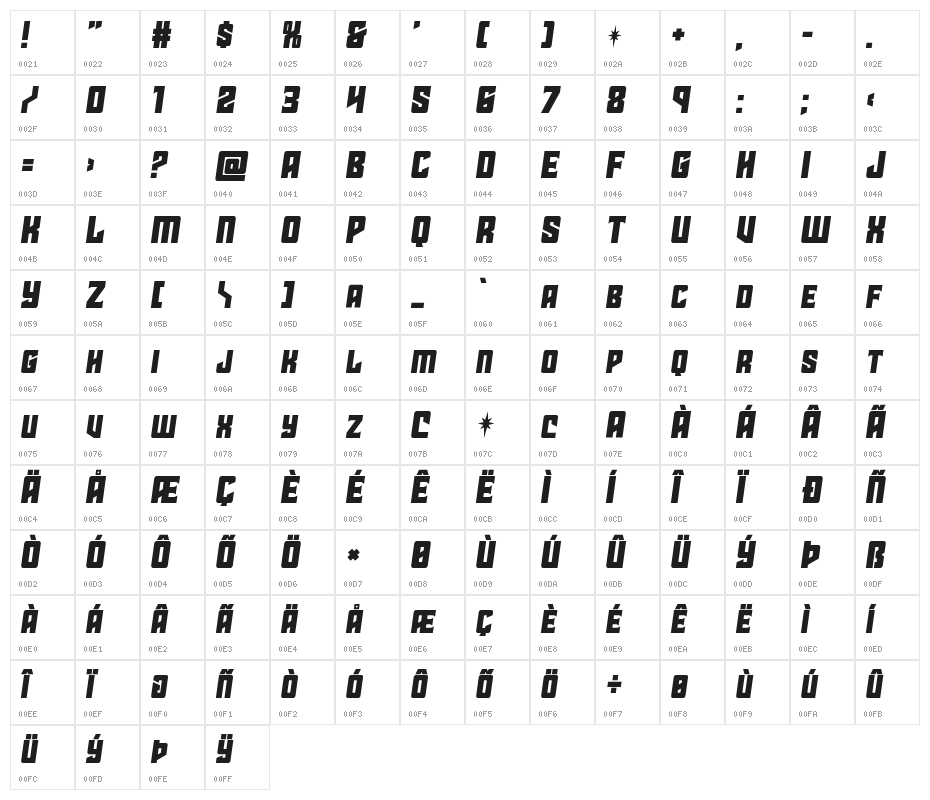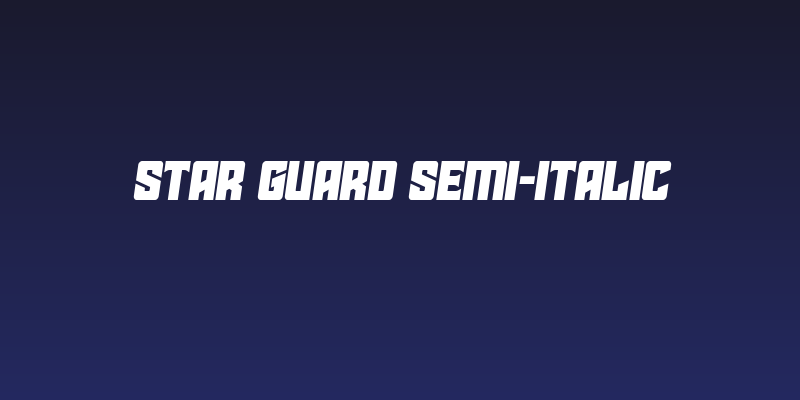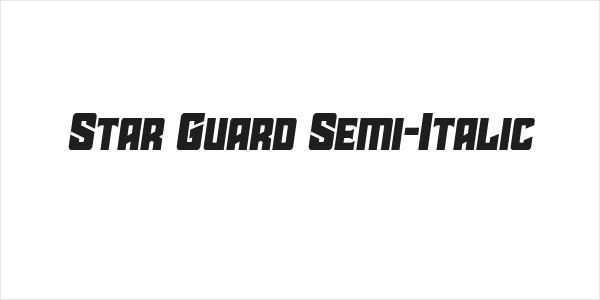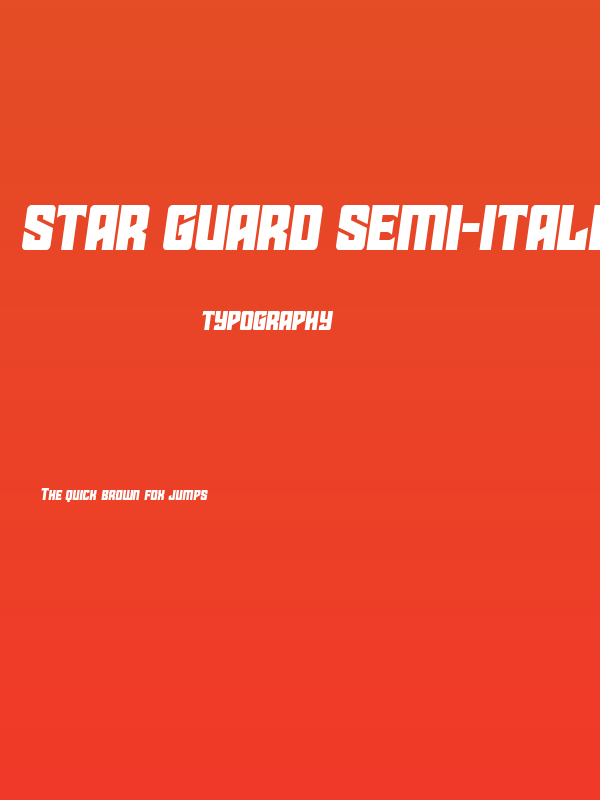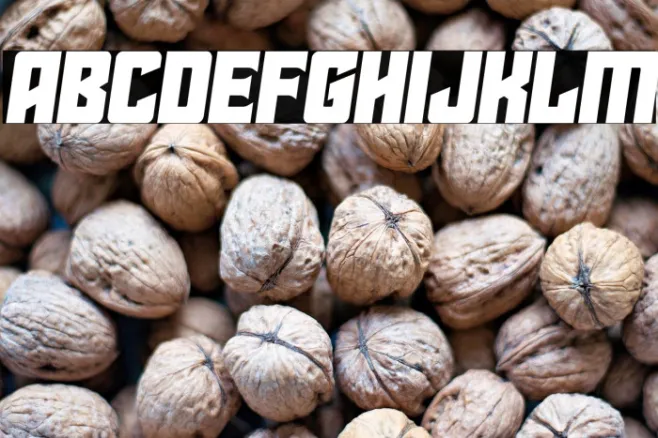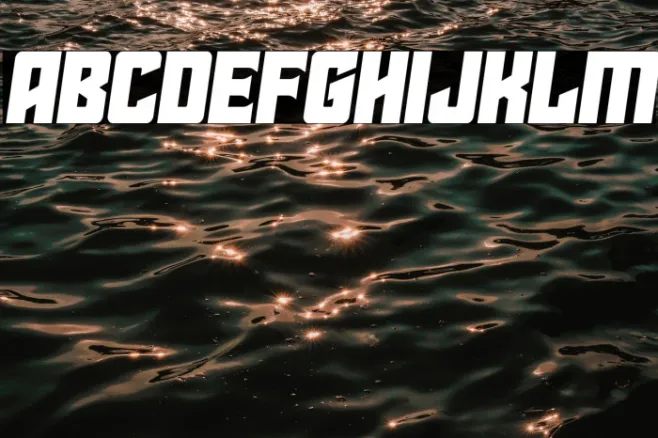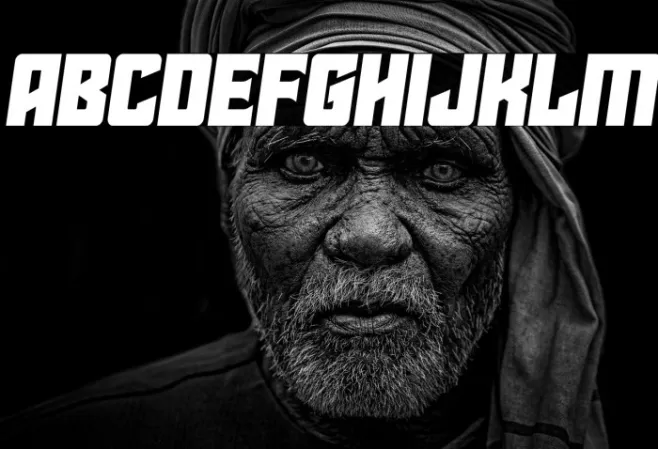
Star Guard Semi-Italic Font
Star Guard Semi-Italic Description
This font features a bold and dynamic style with a semi-italic slant, giving it a sense of movement and energy. The characters are blocky and robust, with sharp angles and a strong presence. The uppercase and lowercase letters maintain a consistent weight, contributing to a cohesive look. The numerals and special characters are designed to match the boldness of the alphabet, ensuring uniformity across all text. This font's distinct style makes it ideal for attention-grabbing headlines and impactful designs.
| Proposed Projects | Ideal for sports branding, action movie posters, video game titles, and dynamic advertising campaigns. |